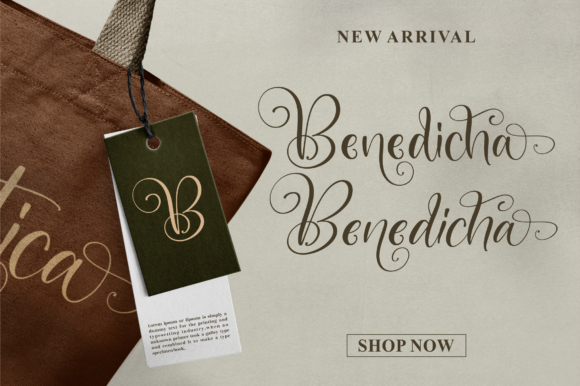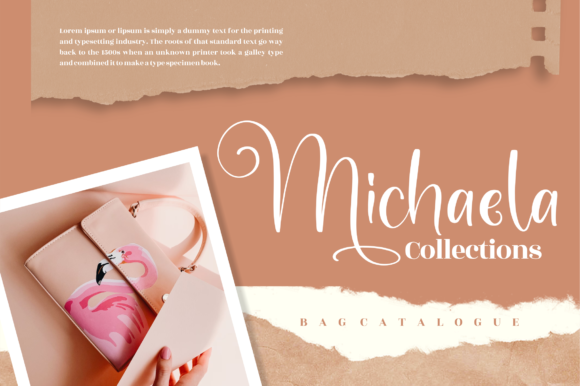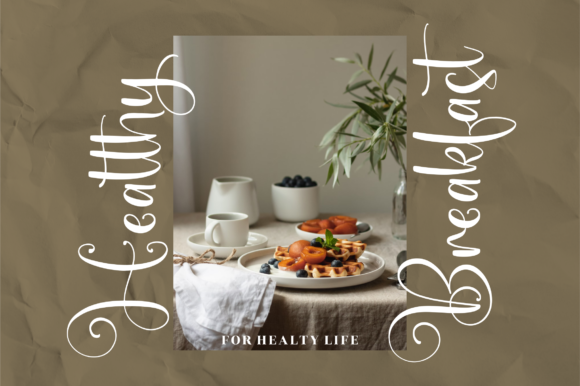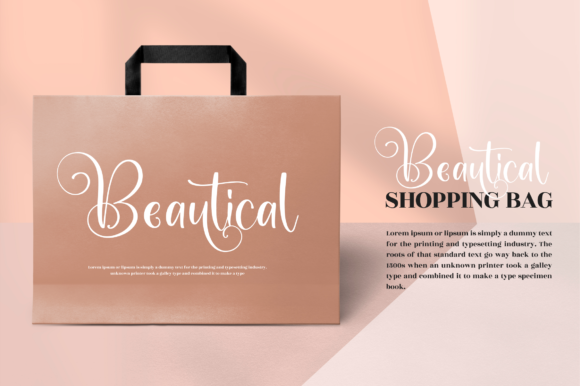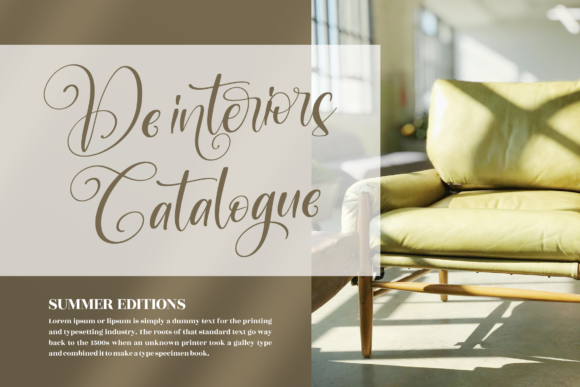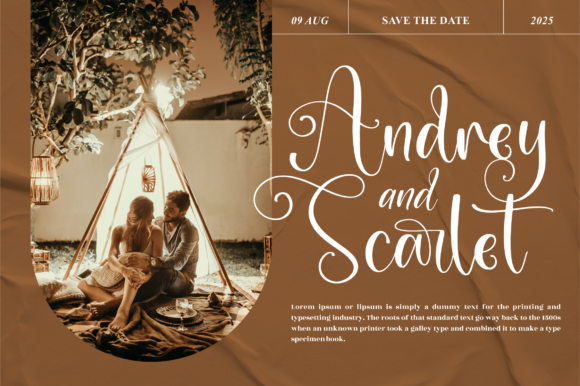
The Elegance of Handwritten Scripts
There’s nothing quite like the feeling of putting pen to paper, watching as your thoughts and ideas flow onto the page in a beautiful, handwritten script. It’s a moment of pure creativity, one that can transport you to a world of elegance and refinement. For designers, this feeling is not just a fleeting moment, but a goal to be achieved in every project.
That’s where the Beautica Dreaming Font comes in – a stunning script font that captures the essence of timeless classic calligraphy. With its contemporary atmosphere and impeccable form, this font is a must-have for any designer looking to add a touch of sophistication to their work. Whether you’re creating a wedding invitation, a logo, or a piece of editorial content, Beautica Dreaming Font is the perfect choice.
Key Features of Beautica Dreaming Font
- Font Family: Beautica Dreaming
- Character Count: 250+ glyphs, including Latin, Cyrillic, and Greek alphabets
- Unique Characteristics: Elegant, cursive script with a whimsical touch, ideal for creative projects, invitations, and decorative typography
Designer Review: Beautica Dreaming Font
✨ I was excited to dive into the world of Beautica Dreaming Font, and overall, I’m impressed with its unique charm. The font’s dreamy, ethereal quality is perfect for projects that require a touch of whimsy and magic.
The font’s versatility is one of its strongest points, as it can be used for a wide range of applications, from fashion and beauty to fantasy and fiction. The letterforms are delicate and intricate, with beautiful flourishes that add to the font’s enchanting nature.
Here are some of the key features that make Beautica Dreaming Font shine:
- ✨ Unique and distinctive letterforms
- ✨ High level of versatility for various design applications
- ✨ Beautiful flourishes and details
⚠️ However, there are some limitations to consider. The font’s complexity can make it difficult to read at smaller font sizes, and the delicate nature of the letterforms may not be suitable for bold or dramatic headlines.
Overall, I think Beautica Dreaming Font is a great addition to any designer’s toolkit, and I would highly recommend it for projects that require a touch of magic and whimsy.
Beautica Dreaming Font is perfect for creating beautiful and unique text elements in a variety of projects, including:
– Branding and marketing materials
– Digital art and graphics
– Print materials such as business cards and brochures
– To add a touch of elegance and sophistication to your designs.
Alternatives to Beautica Dreaming Font
Oswald is a sans-serif font that is highly legible and versatile. It’s ideal for use in titles, headings, and body text where a clean and modern look is desired. Compared to Beautica Dreaming Font, Oswald has a more geometric and structured feel, making it suitable for a wide range of design projects, from digital products to print materials.
Lato is a modern sans-serif font that is highly legible and readable. It’s designed to be used in body text and is ideal for use in digital products, such as websites, mobile apps, and e-books. Compared to Beautica Dreaming Font, Lato has a more open and airy feel, making it suitable for projects that require a clean and minimalist aesthetic.
Merriweather is a classic serif font that is highly legible and elegant. It’s ideal for use in print materials, such as books, magazines, and newspapers, where a traditional and sophisticated look is desired. Compared to Beautica Dreaming Font, Merriweather has a more formal and timeless feel, making it suitable for projects that require a sense of tradition and sophistication.
Playfair Display is an elegant and luxurious serif font that is highly legible and decorative. It’s ideal for use in titles, headings, and body text where a high-end and sophisticated look is desired. Compared to Beautica Dreaming Font, Playfair Display has a more ornate and decorative feel, making it suitable for projects that require a sense of luxury and exclusivity.